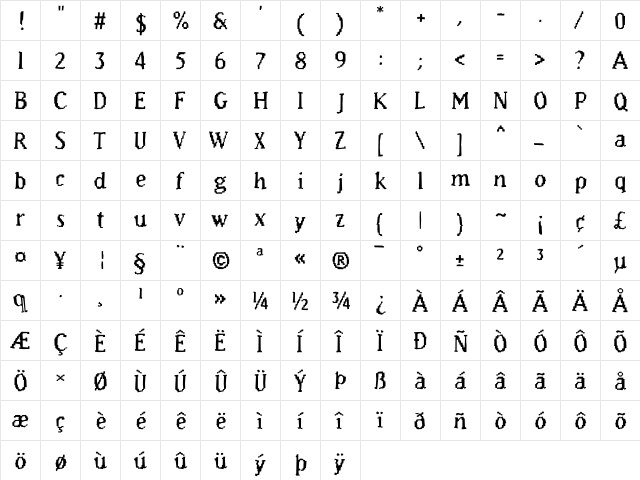
Murphy33 Regular
Design Context for Murphy33 Typeface
Murphy33 offers clean, dependable letterforms without strong stylistic allegiance, making it a practical choice for designers who need flexibility.